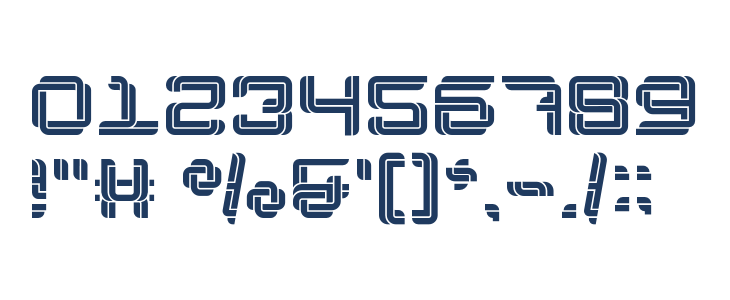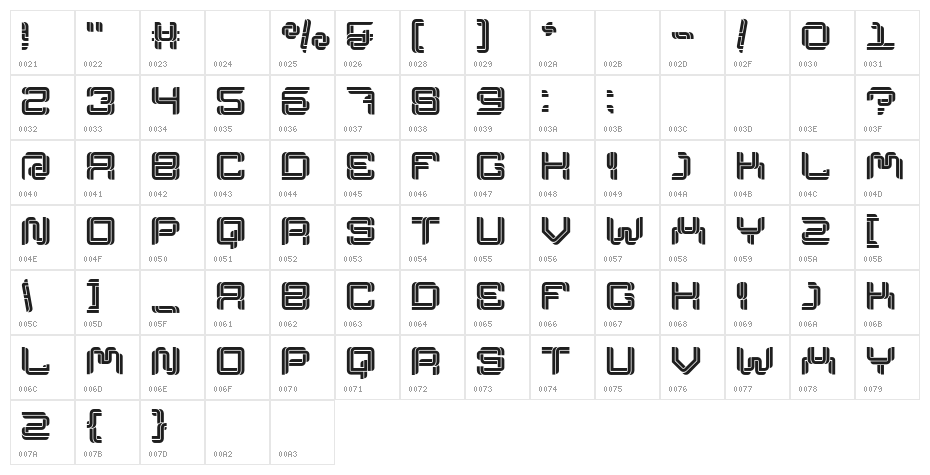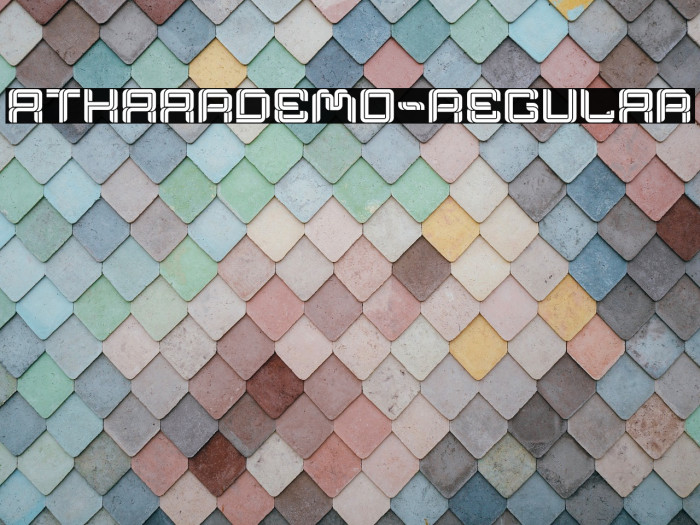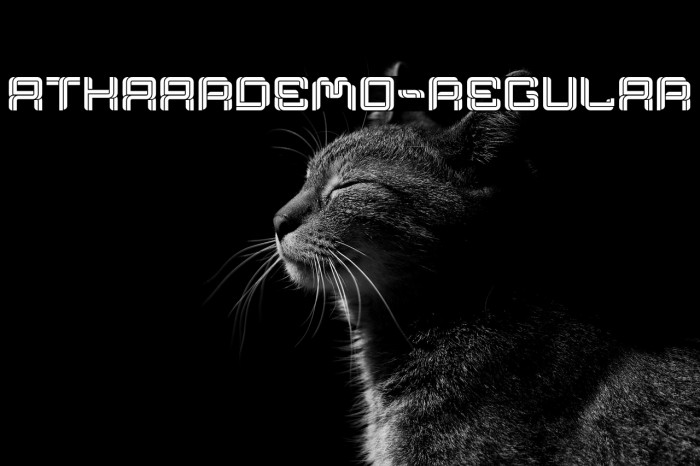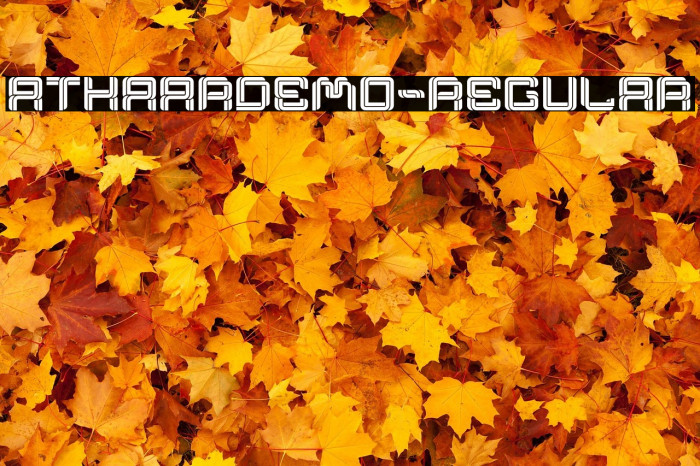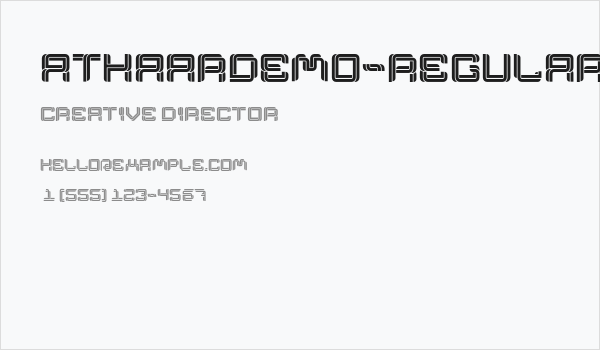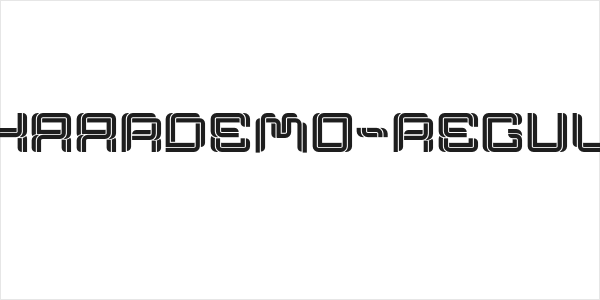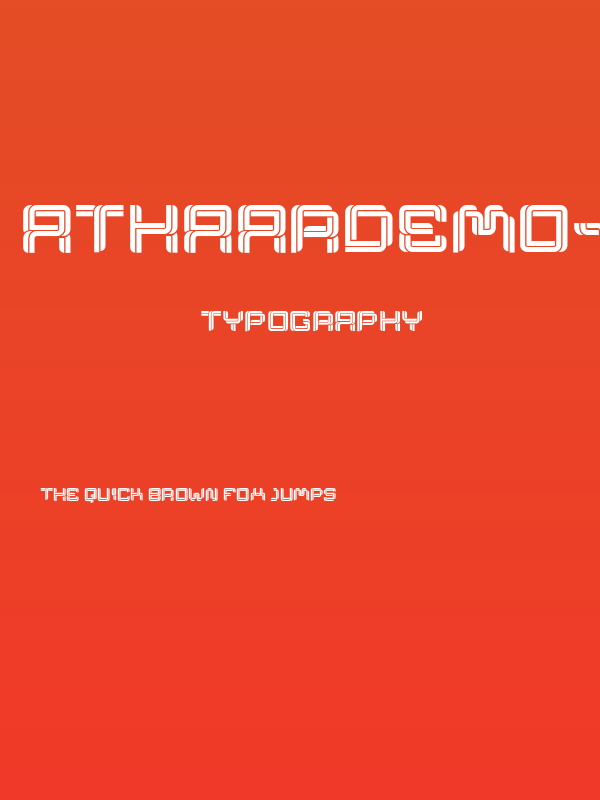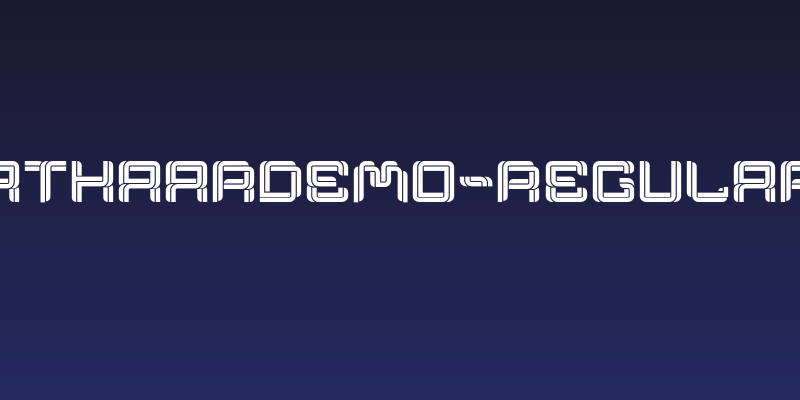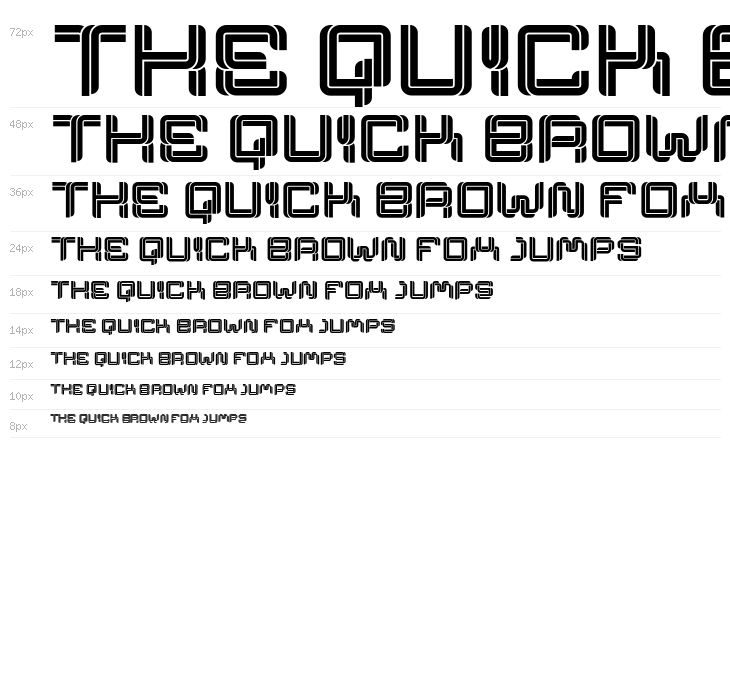
AthaarDemo-Regular Font
AthaarDemo-Regular Description
This font features a futuristic and geometric design with a distinct, segmented appearance. Each character is composed of bold, parallel lines that create a sense of depth and movement. The uppercase and lowercase letters maintain a consistent style, with rounded edges and a uniform thickness throughout. Numbers and special characters follow the same design principles, ensuring a cohesive look across all elements. The font's unique structure makes it stand out, offering a modern and tech-inspired aesthetic.